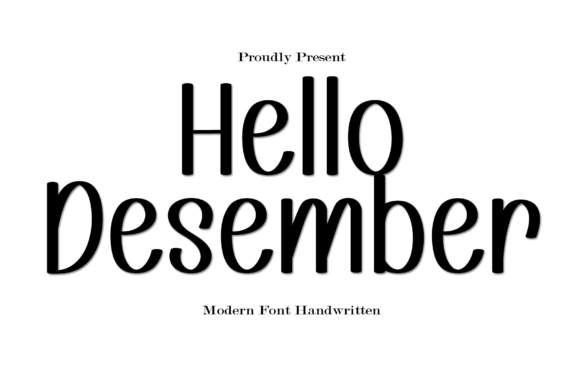
About Hello Desember Font
Hello Desemberfont is a classic and simple script font designed with a random and freestyle style. This unique blend of elegance and casual flair gives your projects a fresh and authentic handwritten look. The font’s versatile nature makes it suitable for a wide array of creative applications, ensuring your designs stand out with charm and personality.
Classic Script with Freestyle Charm
Hello Desemberfont combines traditional script elements with a relaxed, freestyle approach. This fusion creates a natural and inviting feel, while maintaining the sophistication of classic calligraphy. Whether you need a distinctive logo, a compelling headline, or a cohesive brand identity, this font adds a handcrafted touch that resonates with viewers.
Perfect for Diverse Creative Uses
This font fits perfectly across many design fields. Use it for logotypes, corporate branding, and apparel industry materials. It also works well on posters, music album covers, movie titles, video games, magazines, books, comics, cartoons, and digital platforms like YouTube and Instagram. Additionally, Hello Desemberfont enhances website design and other digital projects, making it a valuable asset for any creative professional.
Features and Benefits
Hello Desemberfont is easy to read and visually appealing. Its freestyle style adds an organic, personal vibe without sacrificing clarity or professionalism. This makes it ideal for projects requiring both elegance and creativity.
Why Choose Hello Desember Font?
By choosing Hello Desemberfont, you gain a stylish yet approachable script typeface that elevates your creative work. Whether for branding, editorial, or social media, this font brings warmth, personality, and timeless beauty to your designs.